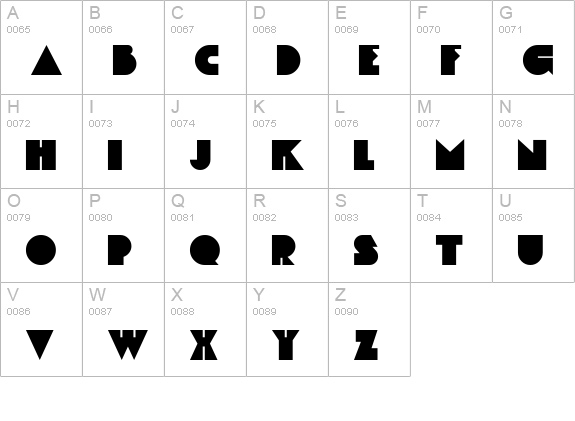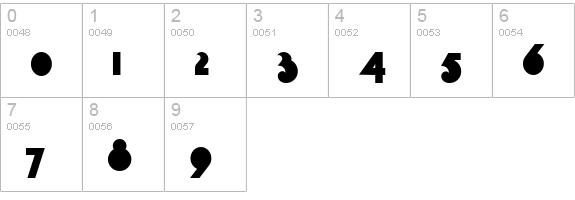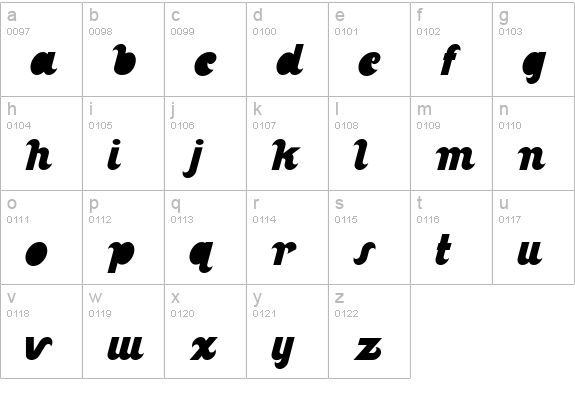
La Moda NF Font Details
La Moda NF is a stunning and elegant font that exudes sophistication and style. Its sleek and modern design is perfect for adding a touch of glamour to any project. With its clean lines and delicate curves, this font is sure to make a lasting impression. What sets La Moda NF apart is not only its beauty, but also the fact that it is free. Yes, you read that right - this gorgeous font is freely available to download at FontsMarket.com. Whether you're a professional designer or just someone who loves typography, you can now enjoy the beauty of La Moda NF without any cost. This font is versatile and highly legible, making it suitable for a wide range of design projects. From logos and branding to invitations and posters, La Moda NF can elevate any piece of artwork to new heights. Its timeless elegance and effortless sophistication make it a go-to choice for designers looking to create a memorable and impactful visual experience. The attention to detail in La Moda NF is truly exceptional. Each letter is meticulously crafted to ensure the utmost precision and balance. The result is a font that is not only aesthetically pleasing, but also easy on the eyes. Whether it's used in large headlines or small body text, La Moda NF remains clear and readable. So, why wait? Discover the beauty and versatility of La Moda NF today. Visit FontsMarket.com and download this extraordinary font for free. Whether you're working on a personal project or a professional endeavor, La Moda NF is sure to impress. Don't miss out on this opportunity to add a touch of elegance to your designs.